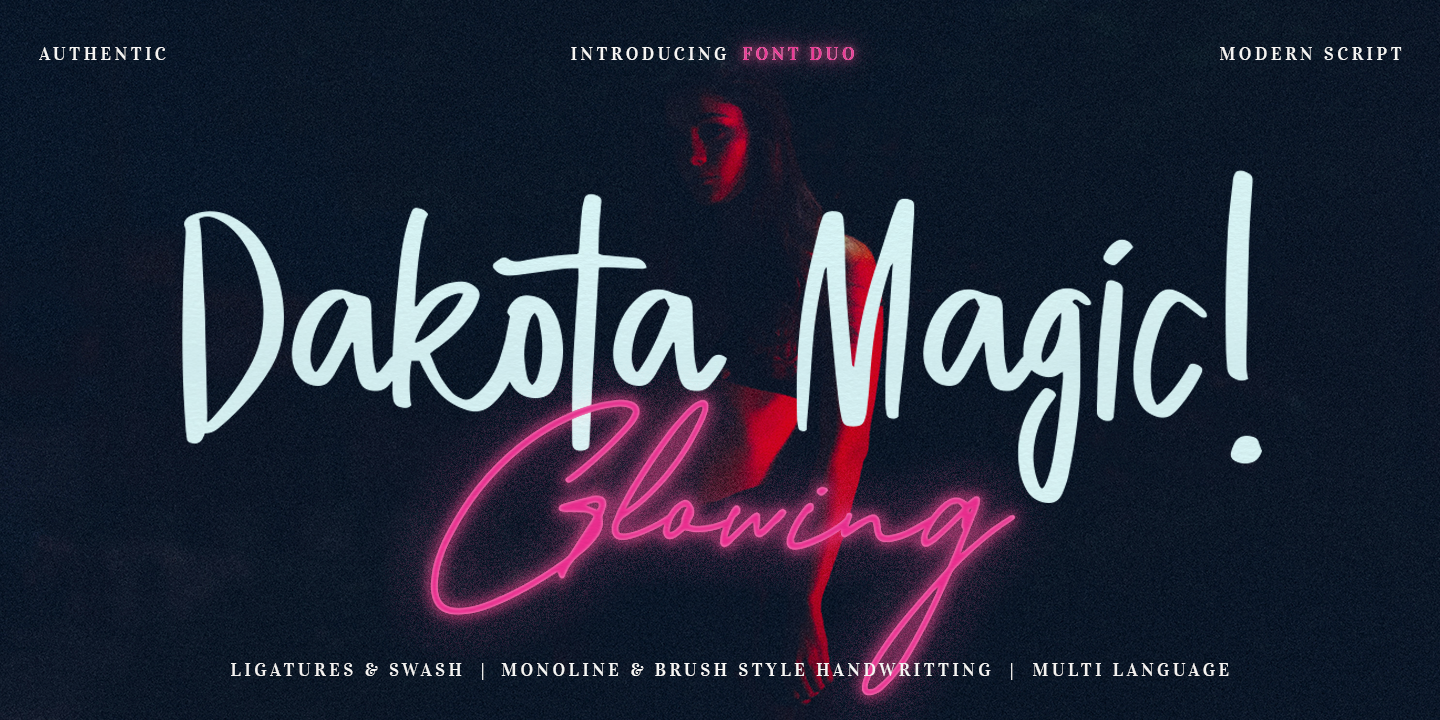
Add a whimsical and enchanting touch to your designs with Dakota Magic Font Free Download. This playful and artistic typeface features flowing strokes, hand-drawn charm, and a slight vintage flair—making it perfect for fantasy-themed projects, children’s books, event invitations, creative branding, and magical illustrations. Dakota Magic Font Free Download captures the spirit of wonder and creativity in every letter.
The organic curves and unique style of Dakota Magic Font make it an excellent choice for headlines, posters, logos, and storytelling visuals. Whether you're designing for a festival, a fairytale brand, or imaginative merchandise, this font brings a sense of magic and warmth to your work.